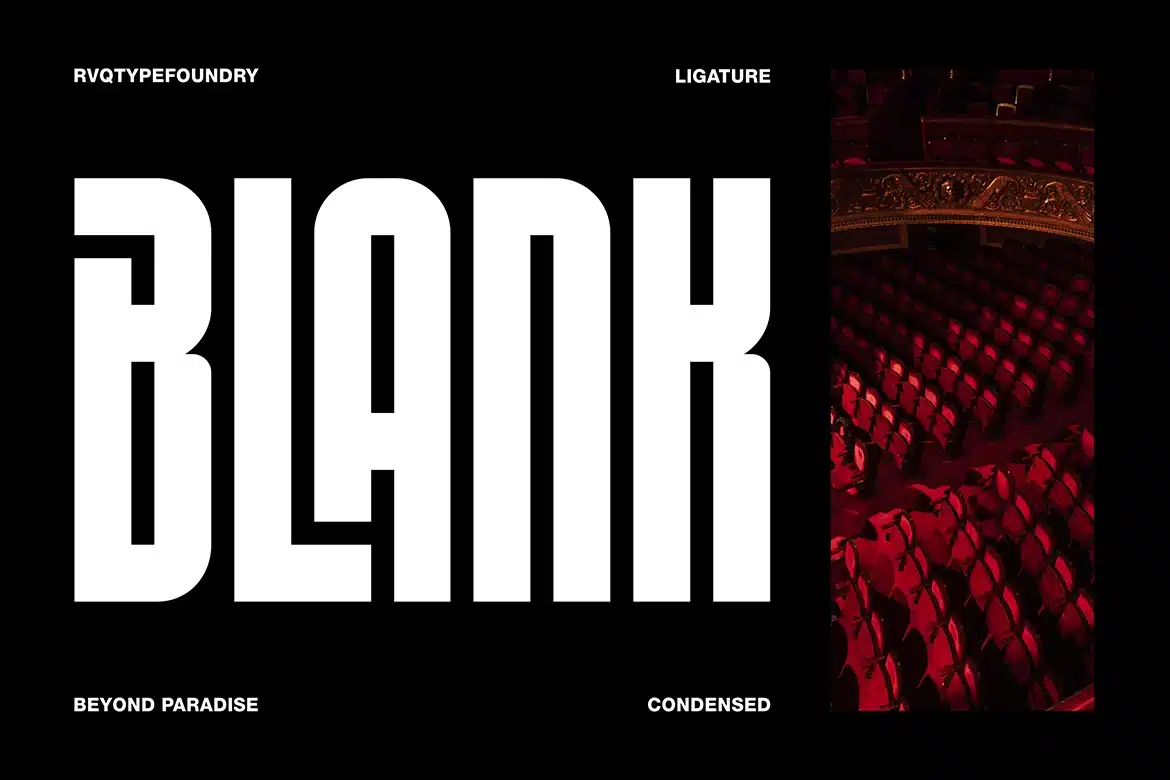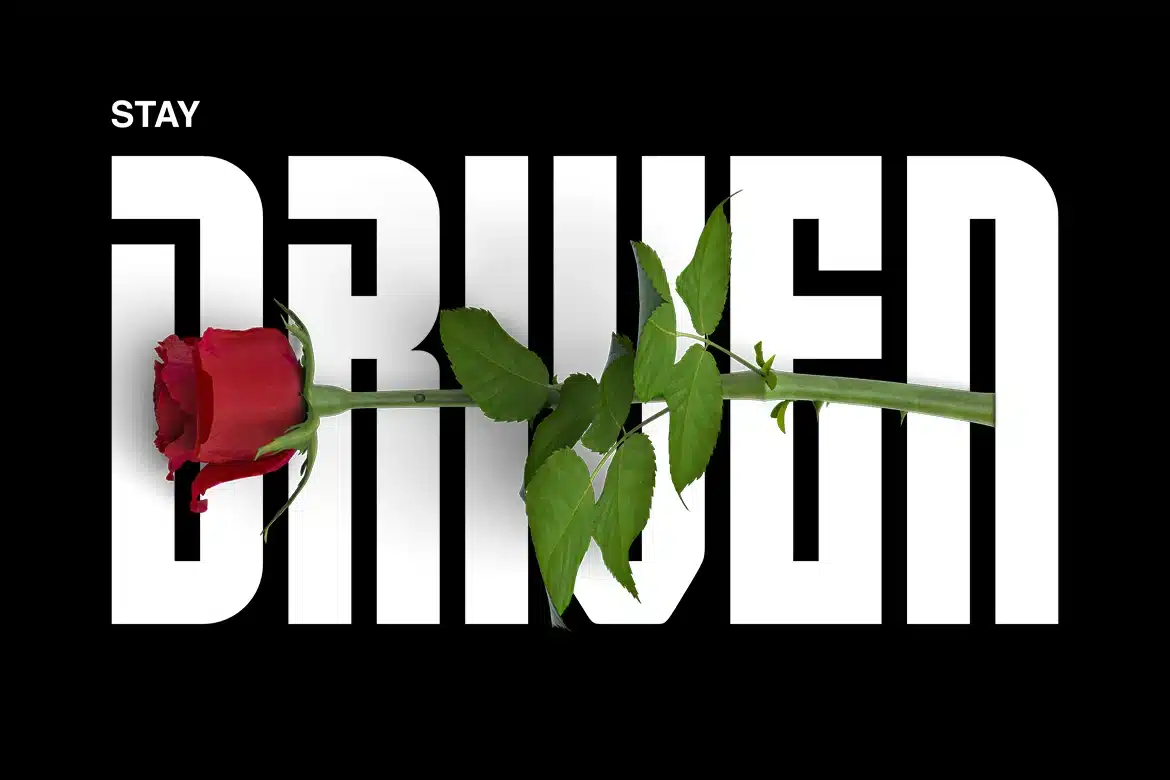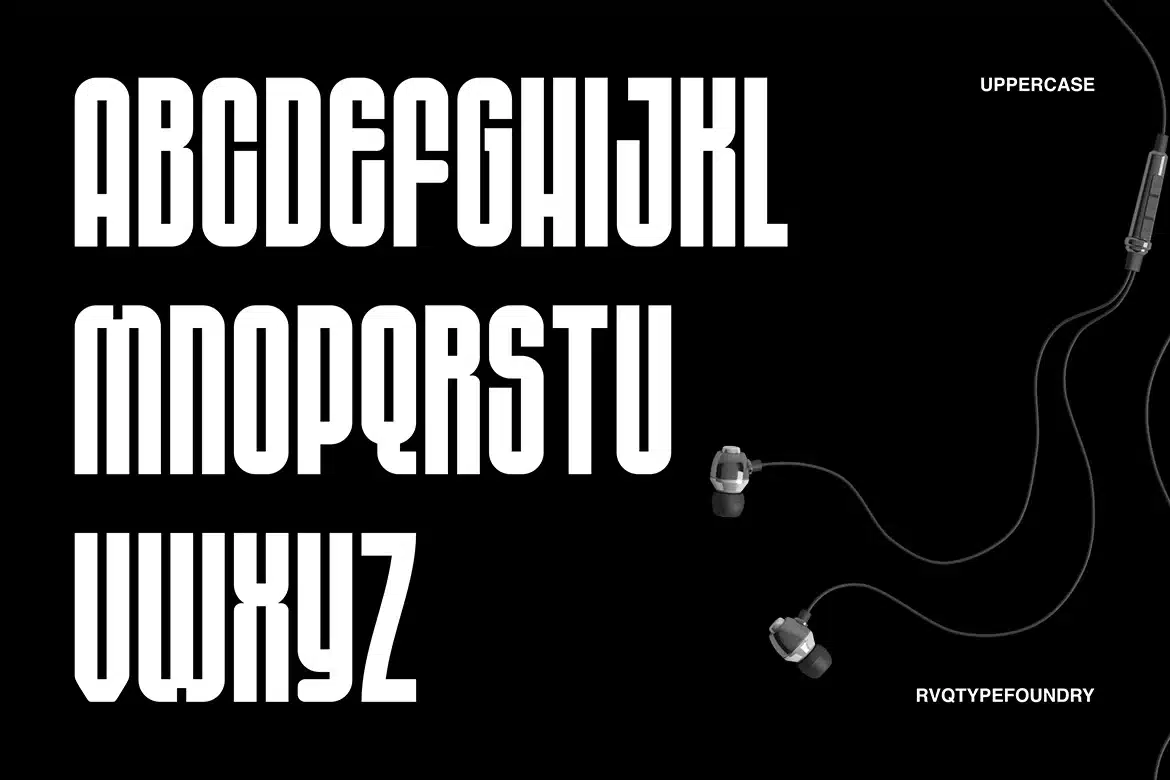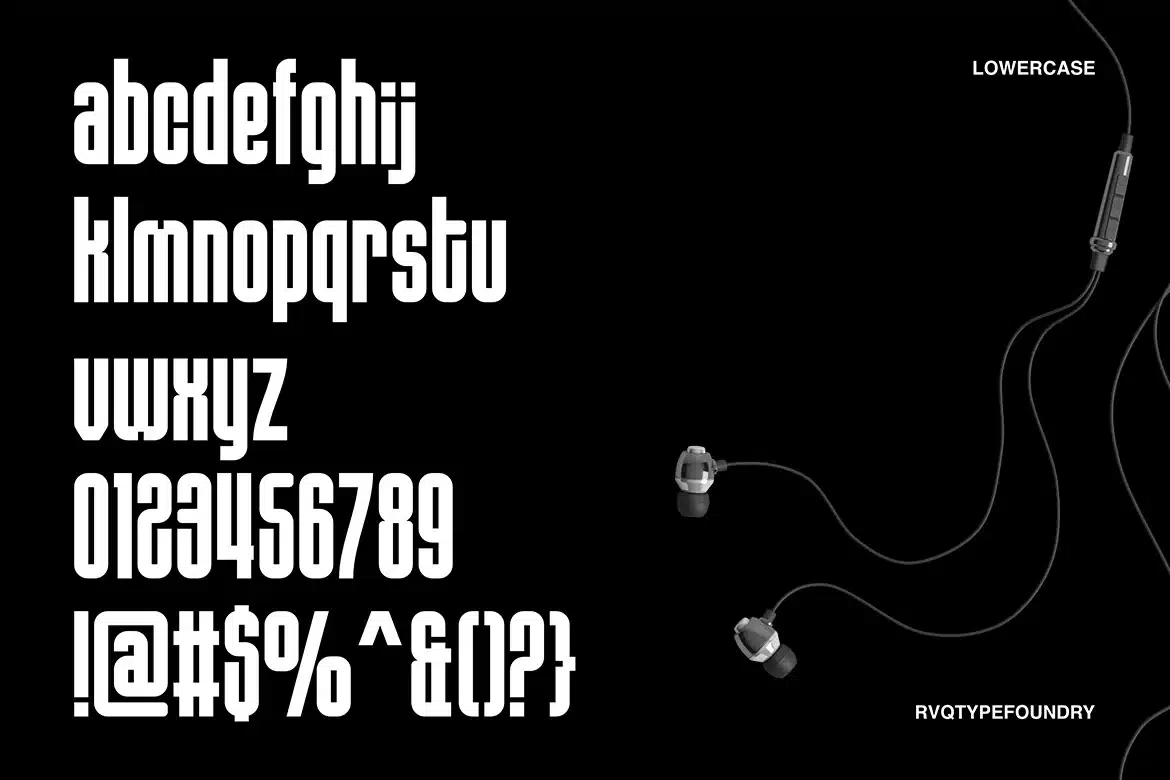
Beyond Paradise Font
Beyond Paradise new font from Rvqtypefoundry This condensed display font delivers a bold, striking presence with its tall, tightly spaced letterforms - perfect for making a strong visual impact. Designed to command attention, it combines modern minimalism with a powerful urban edge, Its clean lines and compact structure maximize space without sacrificing readability, allowing your message to stand out with confidence and style. If you're looking to create a design that feels both contemporary and assertive, this font is the perfect choice.